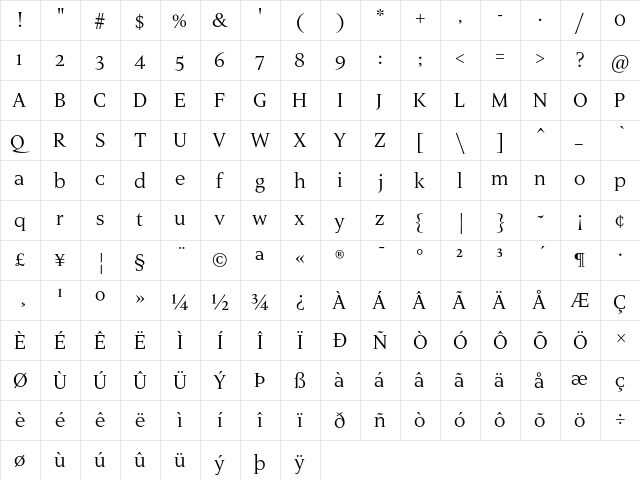
Luxury Text Roman
| Foundry | House Industries |
| Designer | Christian Schwartz & Dino Sanchez |
Design Context for Luxury Text Typeface
Luxury Text is a composed and adaptable typeface that performs quietly and consistently across a wide range of design contexts.